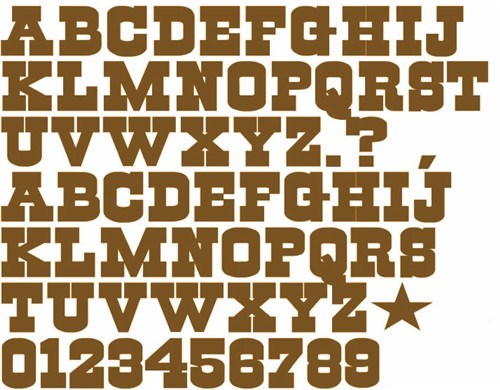
Unicorn Creatives is happy to present Saloon Font Embrilliance - Bold Block Lettering - BX font machine embroidery font which has Classic block style embroidery font ideal for saloon-themed decorations. Suitable for stitching on jackets or bags, it offers a bold presence. Available in BX font and Embrilliance formats. included. If you would like to view more embroidery fonts and alphabets please search our embroidery fonts page.
Saloon Font Embrilliance - Bold Block Lettering - BX font